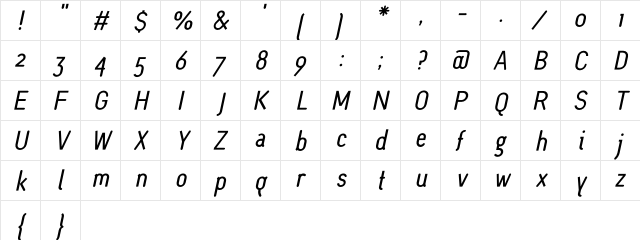
Monolein Slanted
Design Context for Monolein Typeface
Monolein brings the precise, column-aligned rhythm of monospaced typography to designs that value technical clarity and systematic order. The slanted form adds forward momentum and visual energy.